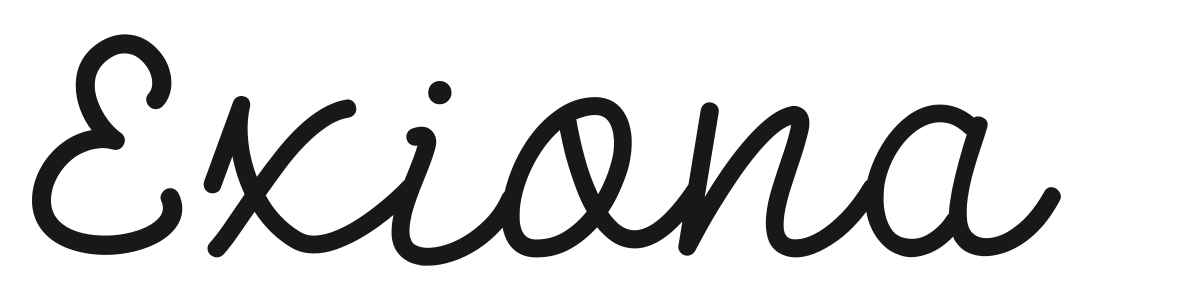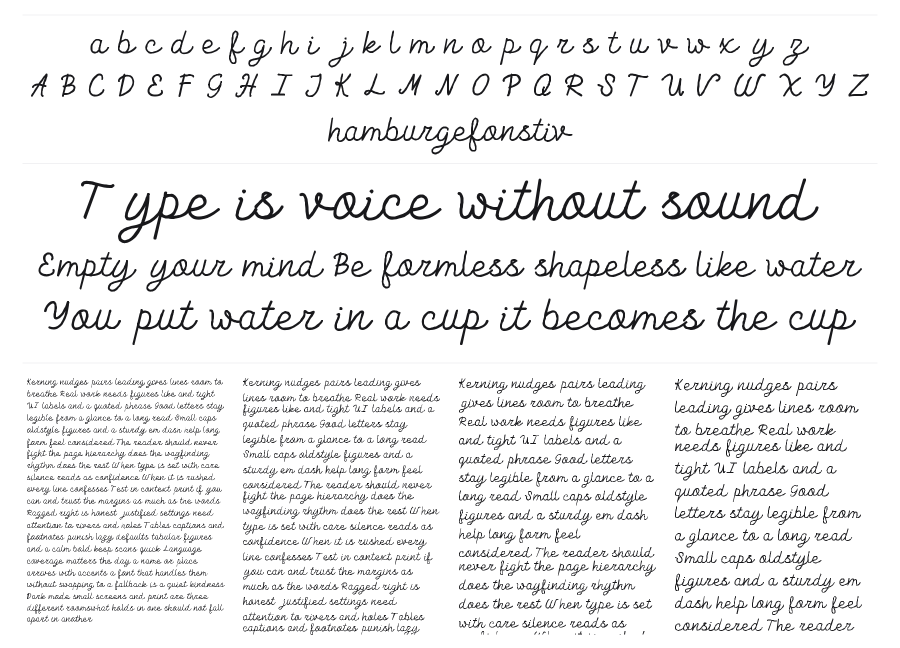
Exiona
Exiona is a flowing monoline cursive script with fully connected characters and a light, casual pen feel. The rounded loops and natural baseline bounce give it warmth without feeling overly formal. It suits branding, packaging, and any project that calls for a personal, handwritten touch.